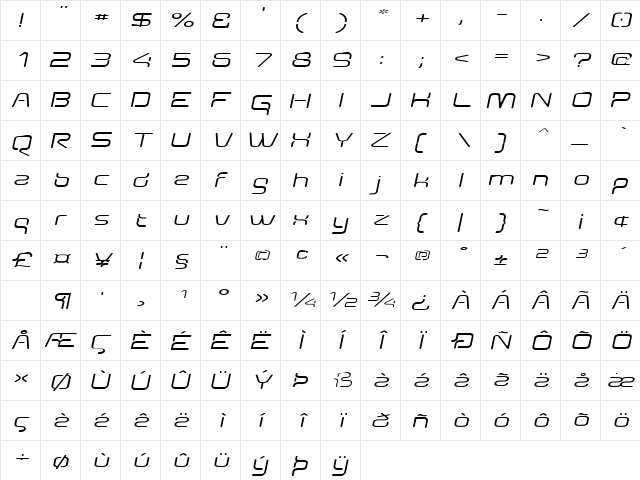
Aunchanted Expanded Oblique Regular
Design Context for Aunchanted Expanded Oblique Typeface
Aunchanted Expanded Oblique is a composed and adaptable typeface that performs quietly and consistently across a wide range of design contexts. The dynamic lean of this cut emphasises speed and emphasis in any layout.
Pro Tip: Try Aunchanted Expanded Oblique for annotation and caption copy alongside an upright companion — the contrast in angle creates a dynamic but ordered typographic system.